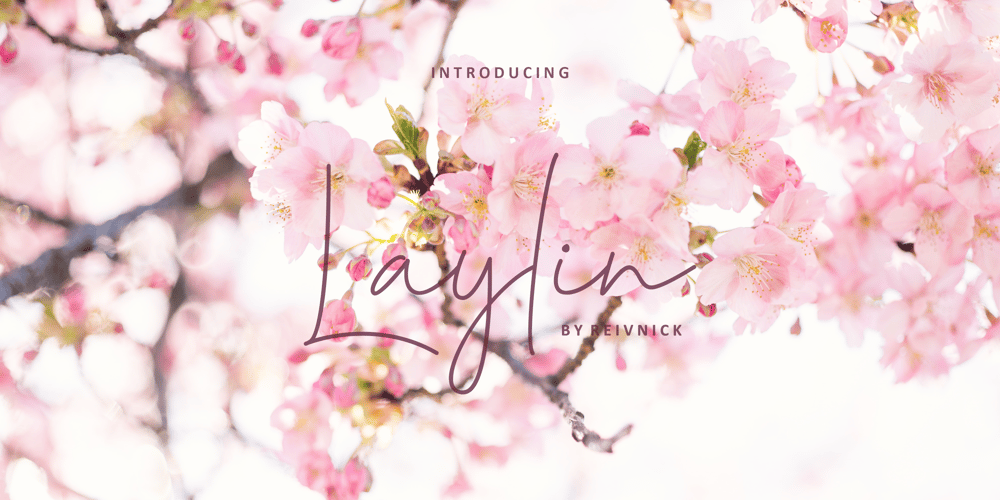
Laylin Font Family was designed by Benediktus Hosni Iryandito and published by ReivNick. Laylin contains 1 styles and family package options. Laylin is a modern calligraphy font. It’s containing upper & lowercase letters, punctuation, and numerals. Laylin is suitable for branding, logotype, apparel, T-shirts, hoodies, product packaging, quotes, flyer, poster, advertising, and more!